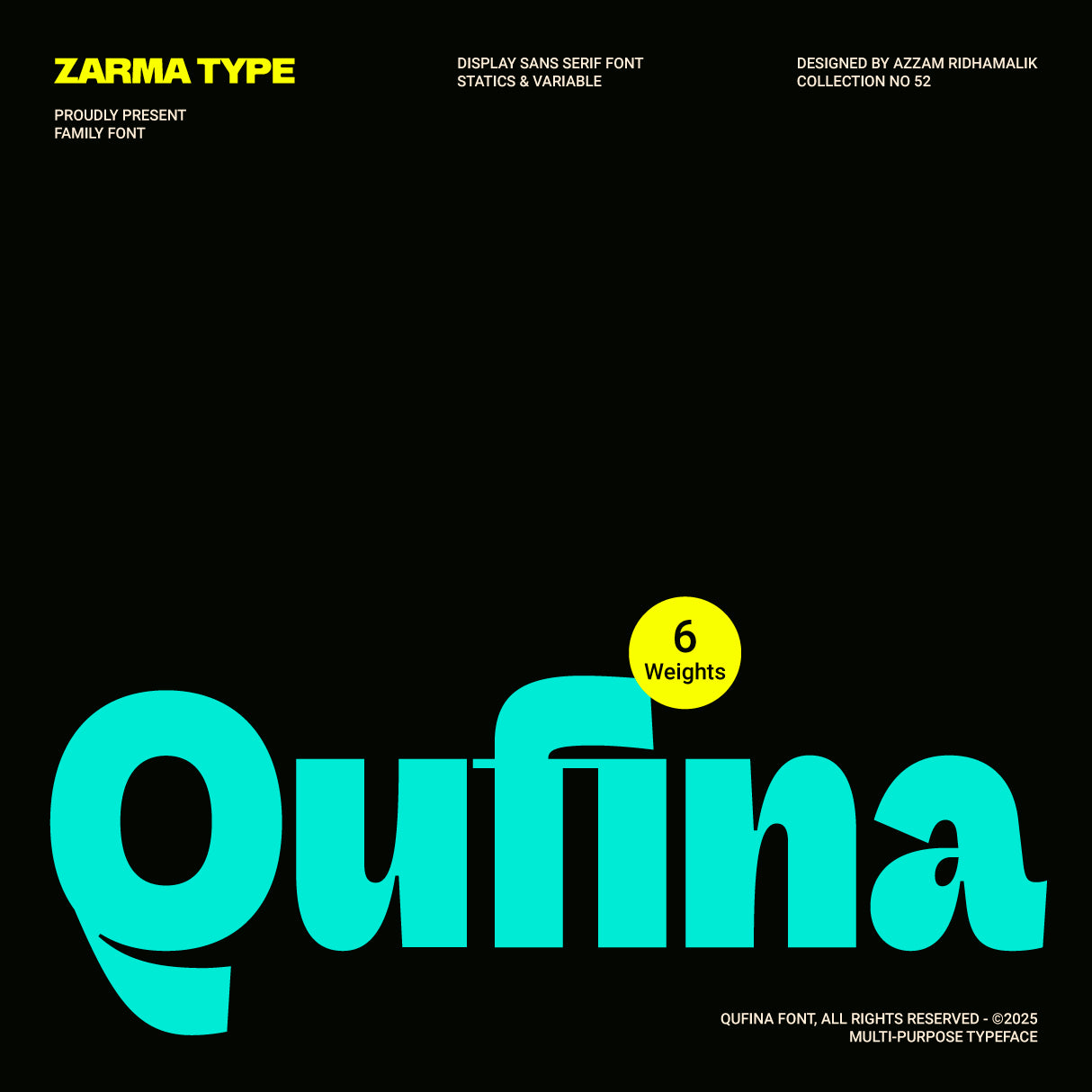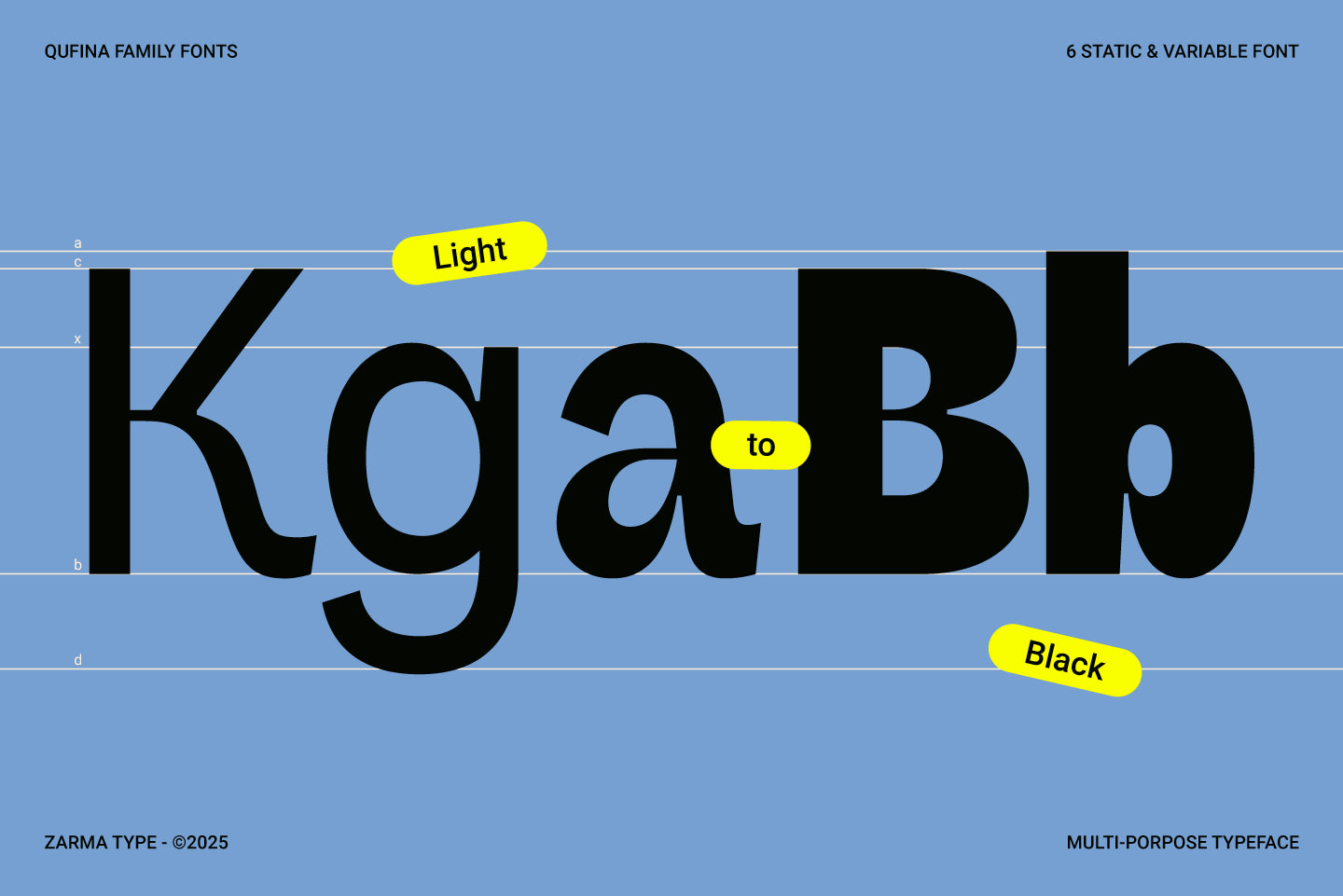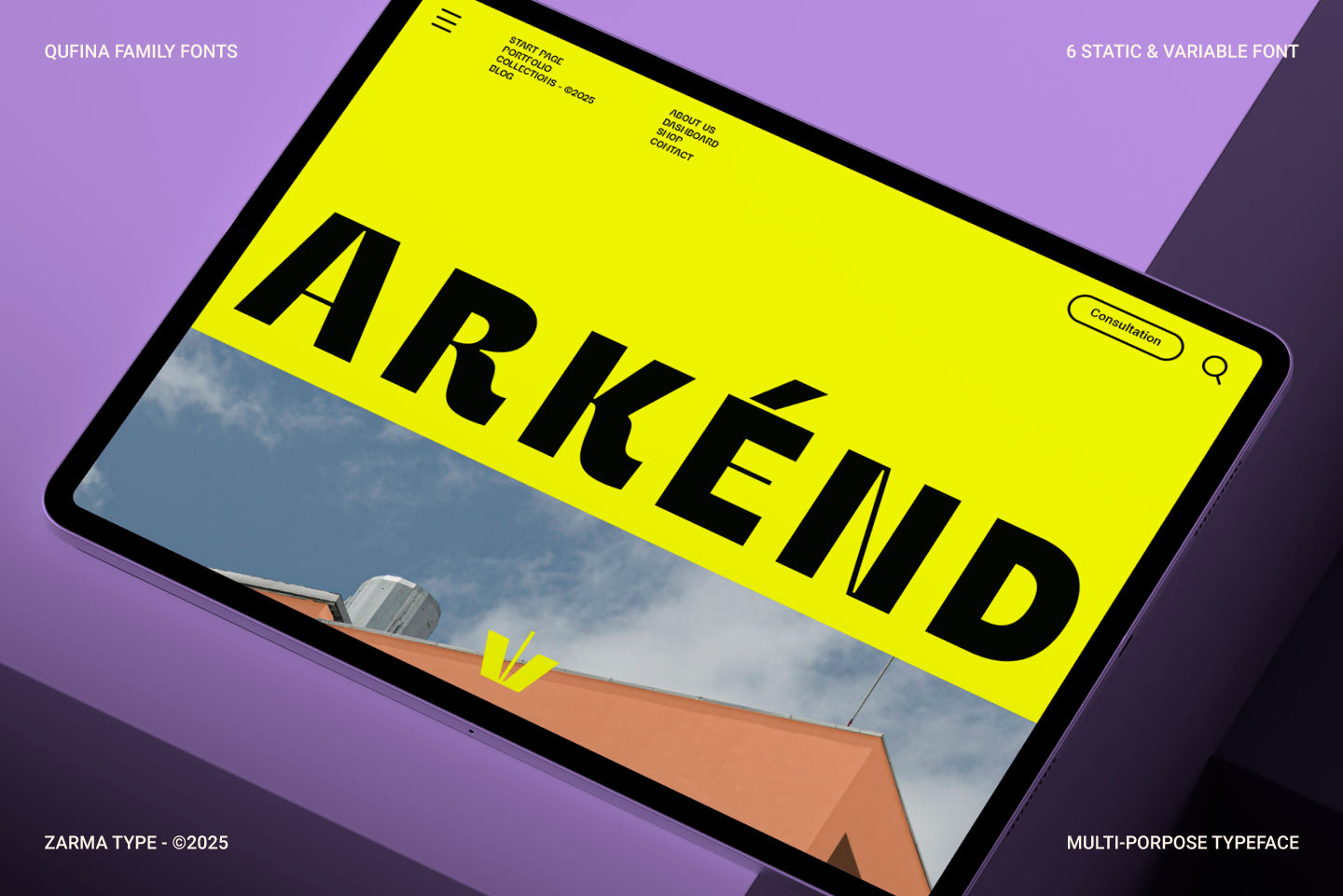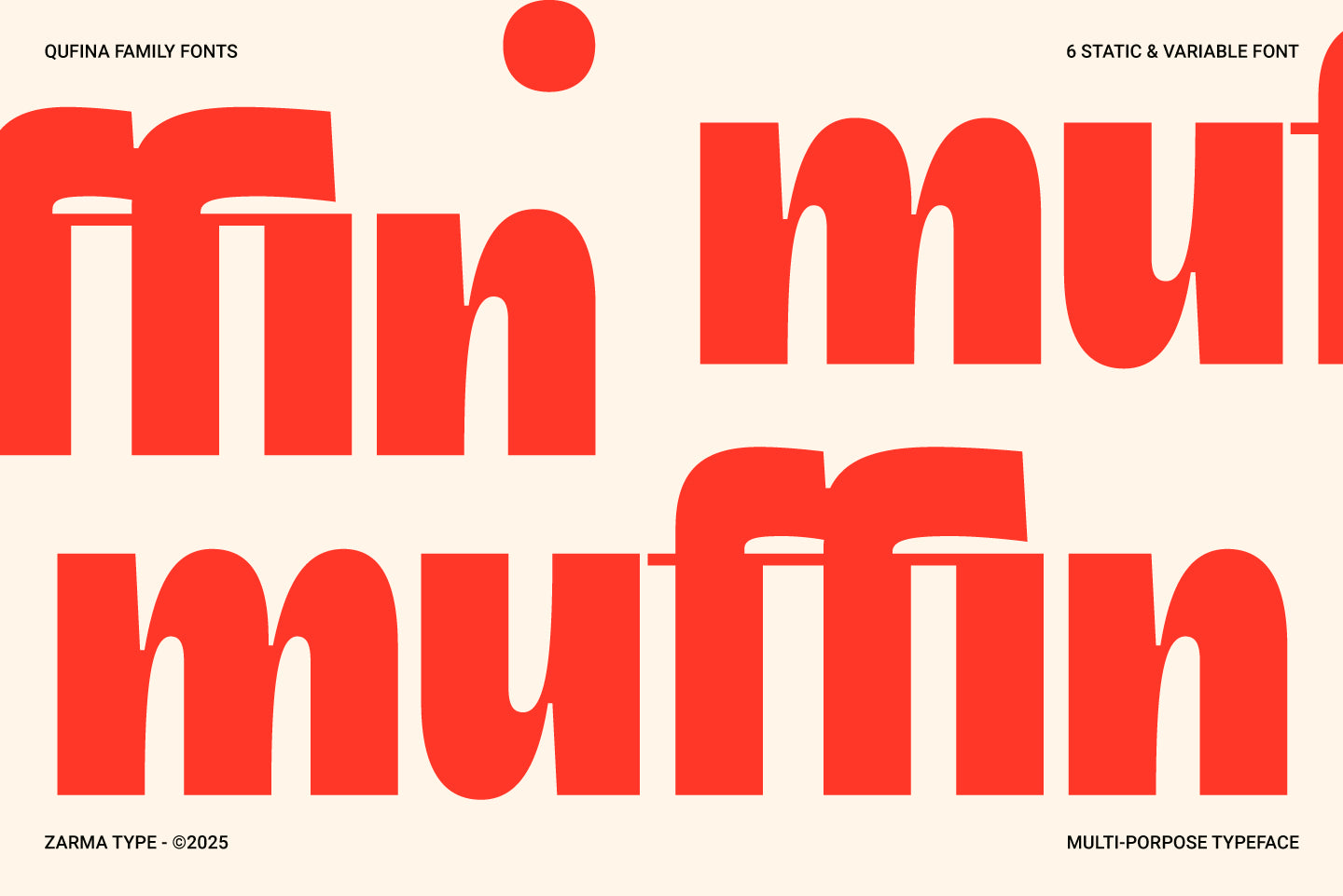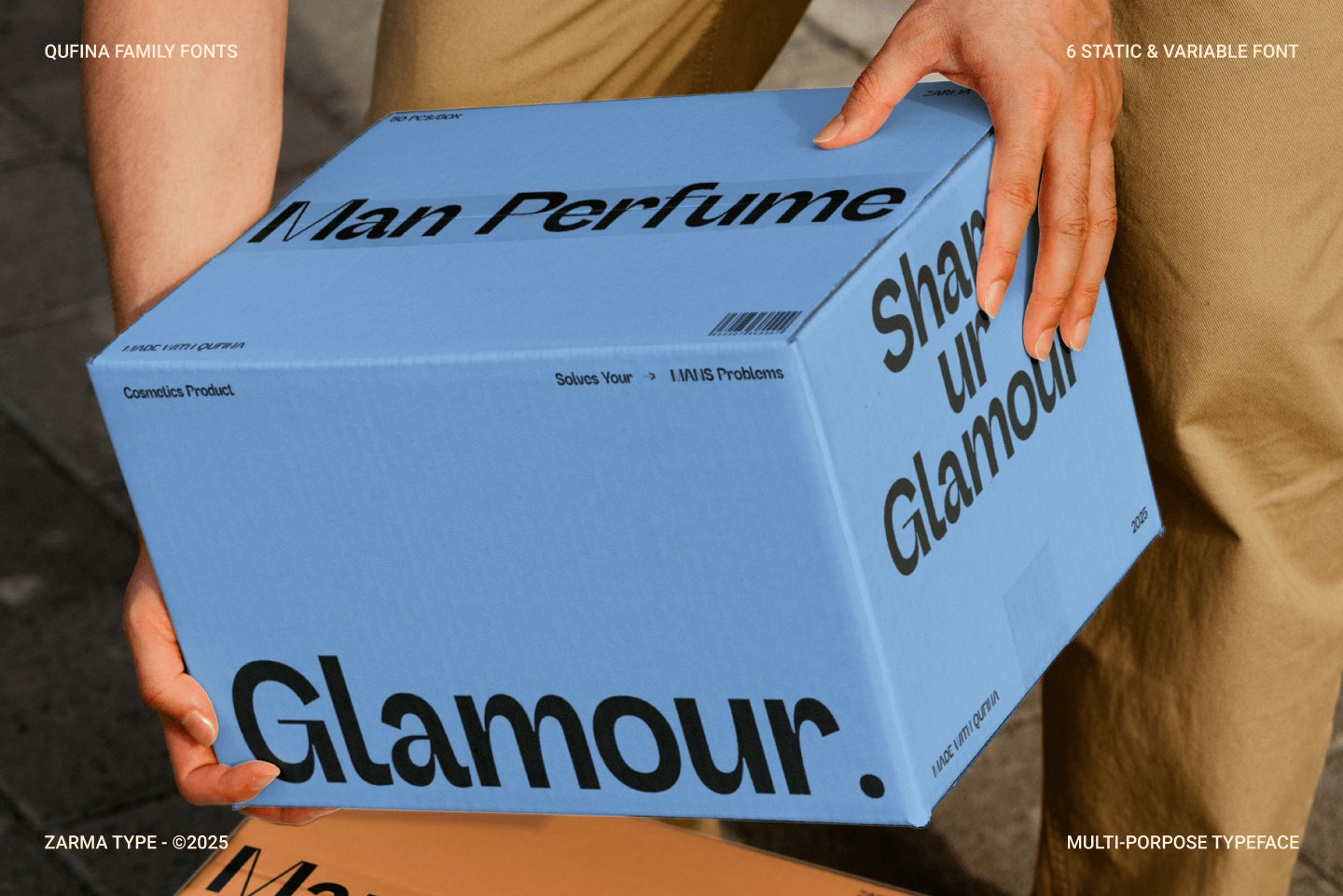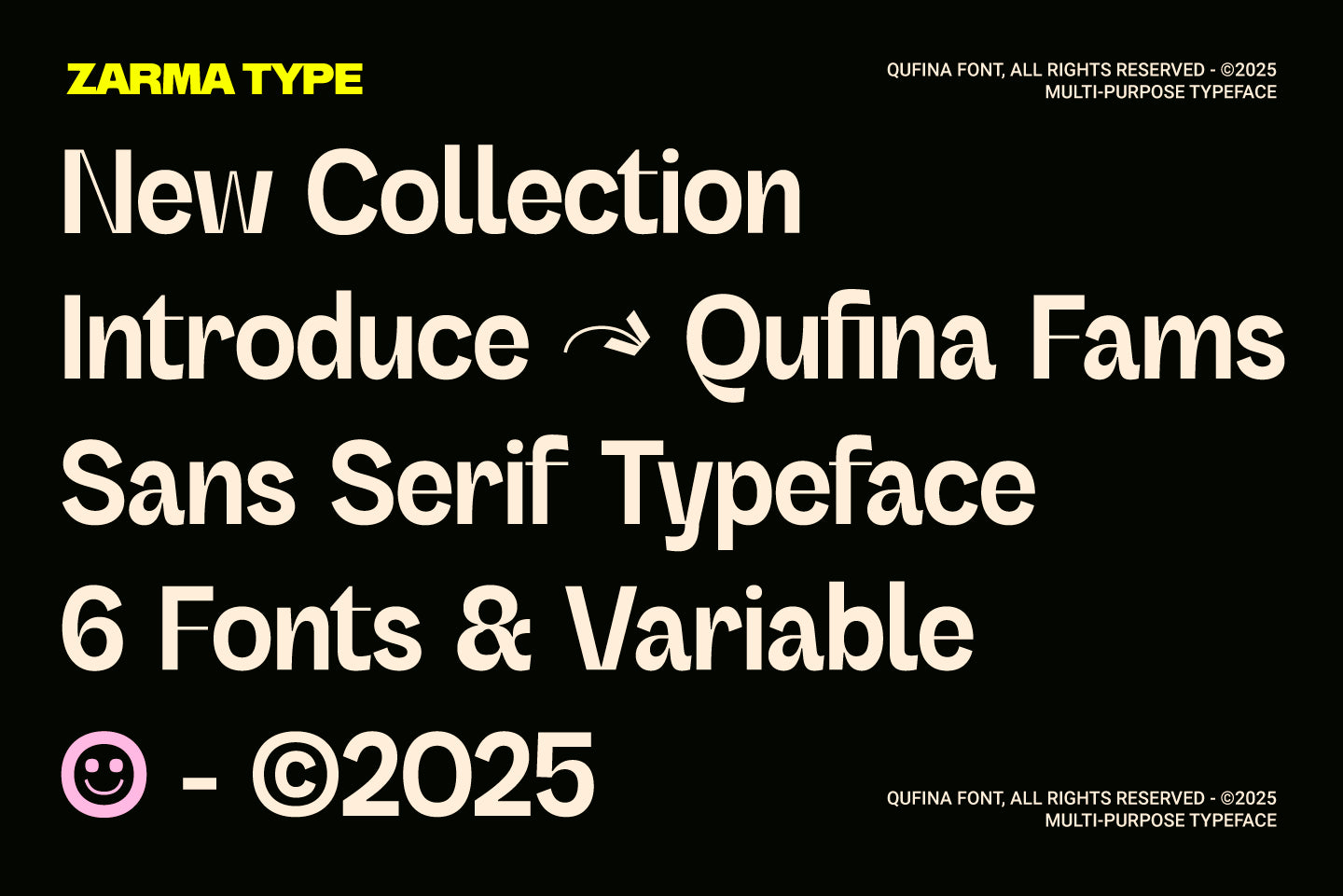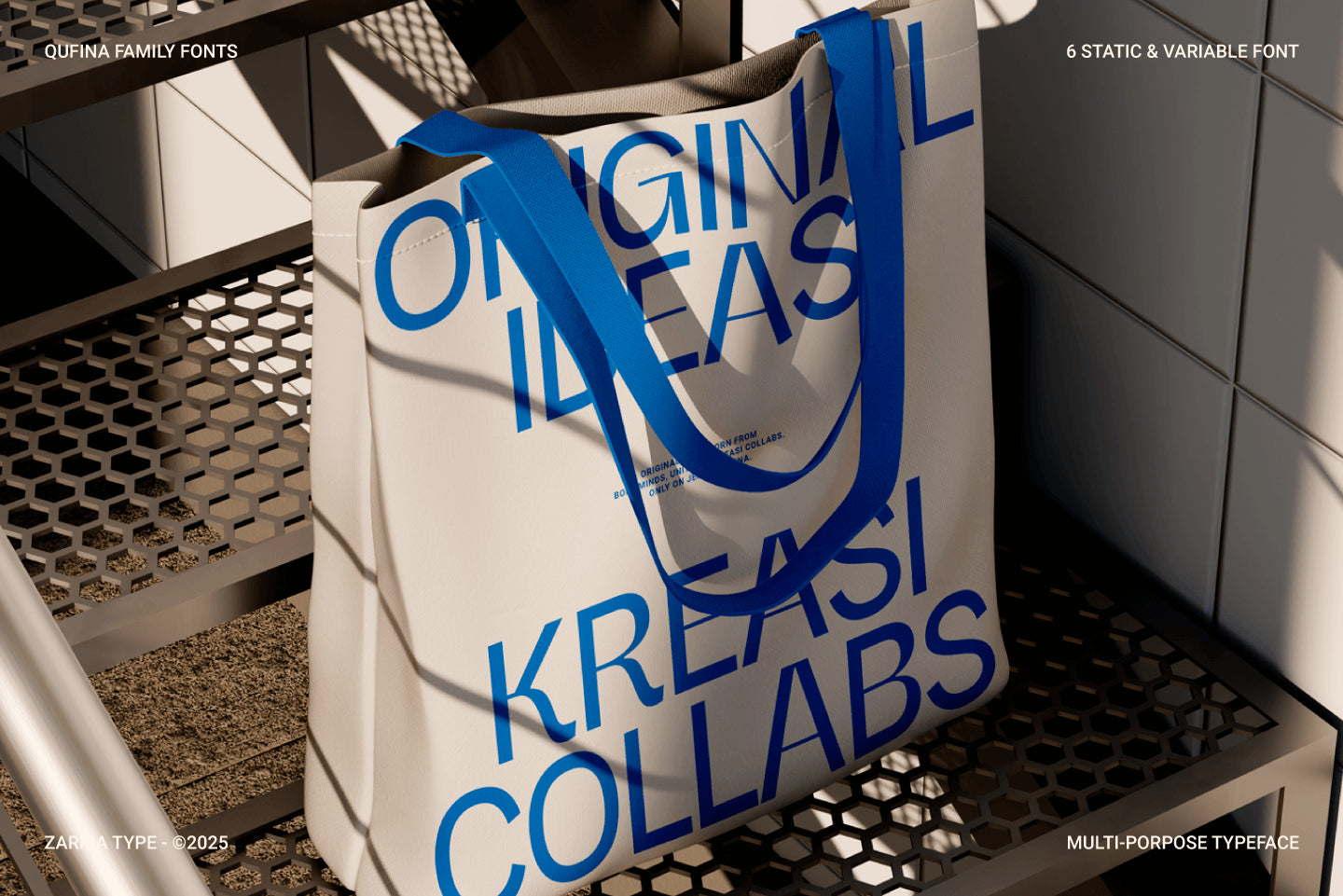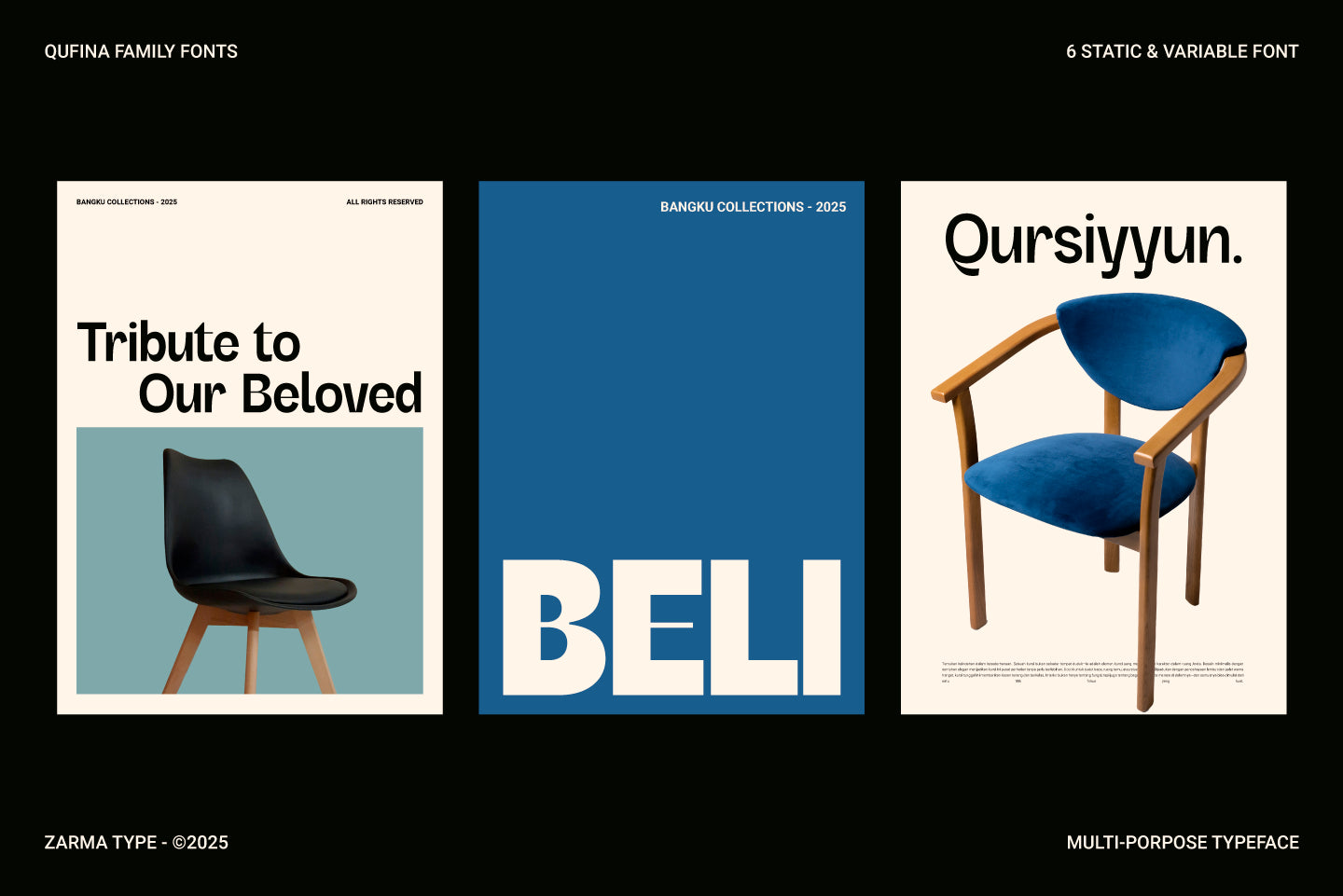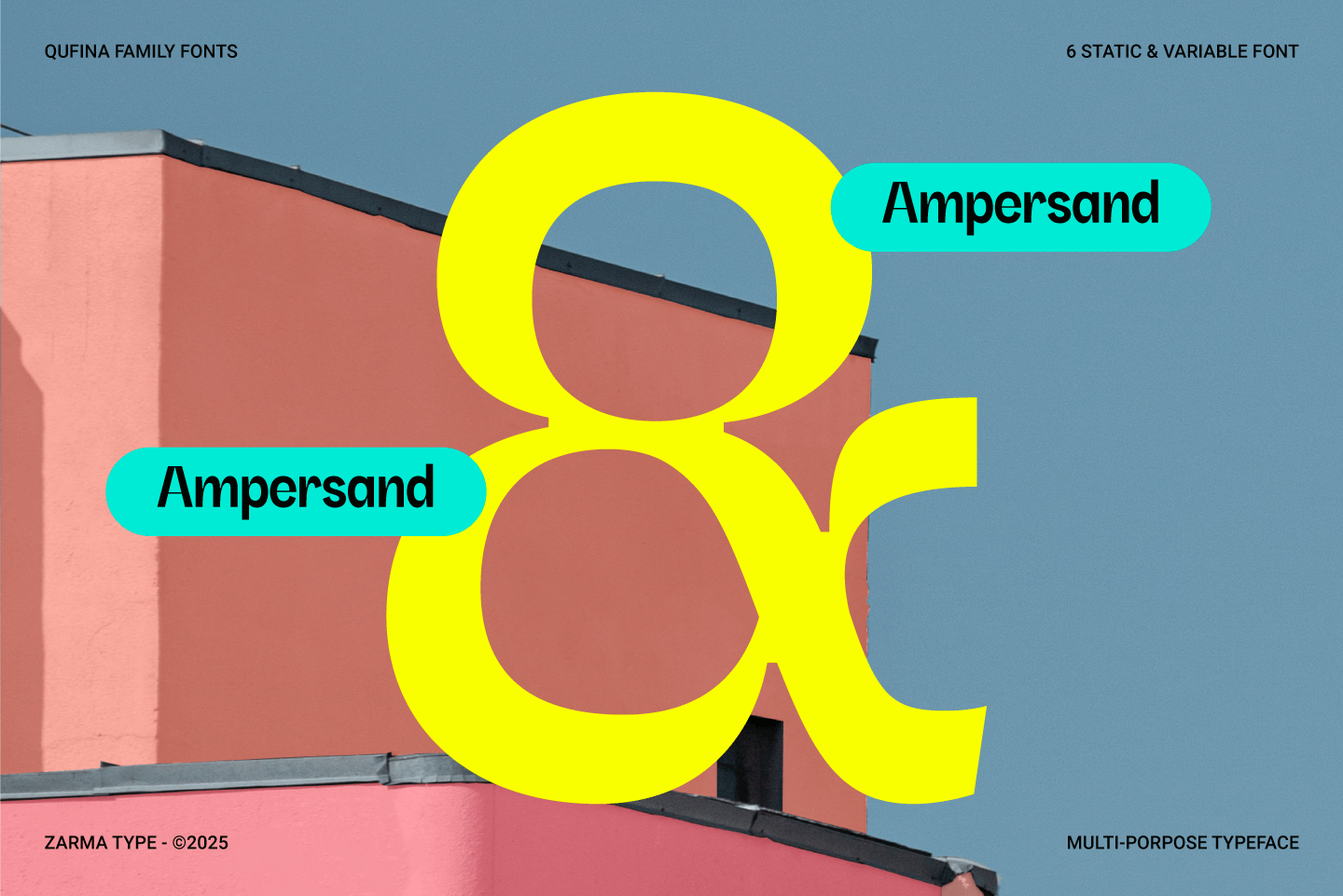
Qufina Family Font
Qufina is a modern Sans Serif Font Family that combines bold clarity, geometric balance, and functional elegance with a playful personality. Available in 6 weights—Light, Regular, Medium, Semi-Bold, Bold, and Black—plus a Variable Font version, Qufina adapts effortlessly to branding, logos, editorial layouts, display typography, fashion and lifestyle branding, web interfaces, packaging, posters, and contemporary digital design. Its clean curves, sharp terminals, and youthful character capture the spirit of modern bold minimalism while maintaining a polished, professional appearance.
Designed for versatility and performance, Qufina includes OpenType Features, PUA Encoded Characters, Extended Latin, and Multilingual Support, making it suitable for global creative projects. Whether paired with bold colors, minimalist layouts, or expressive branding systems, Qufina delivers the flexibility, readability, and distinctive modern style needed to make every design stand out.
Qufina Family Font is a modern Sans Serif font family available in six weights—Light, Regular, Medium, Semi-Bold, Bold, and Black—along with a Variable Font version. It features clean curves, sharp terminals, and includes OpenType Features, PUA Encoded Characters, Extended Latin, and Multilingual Support, making it suitable for a variety of design applications.